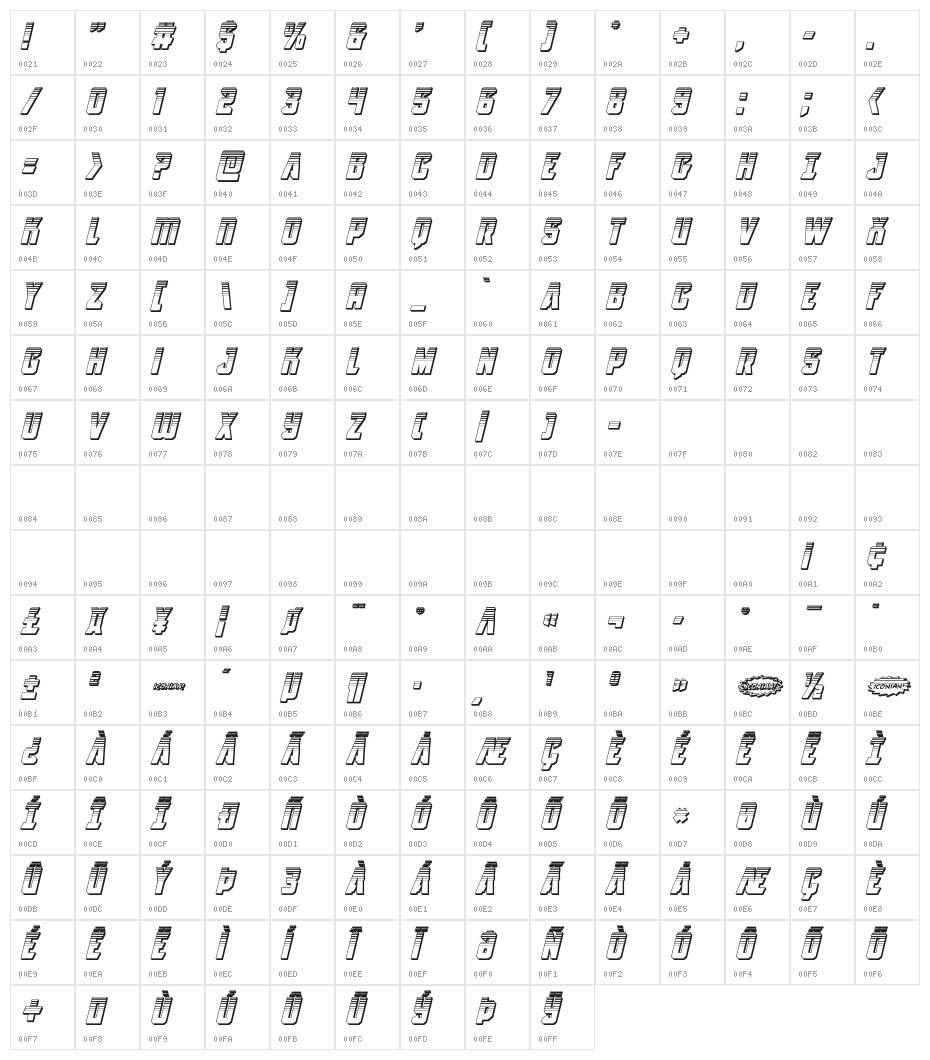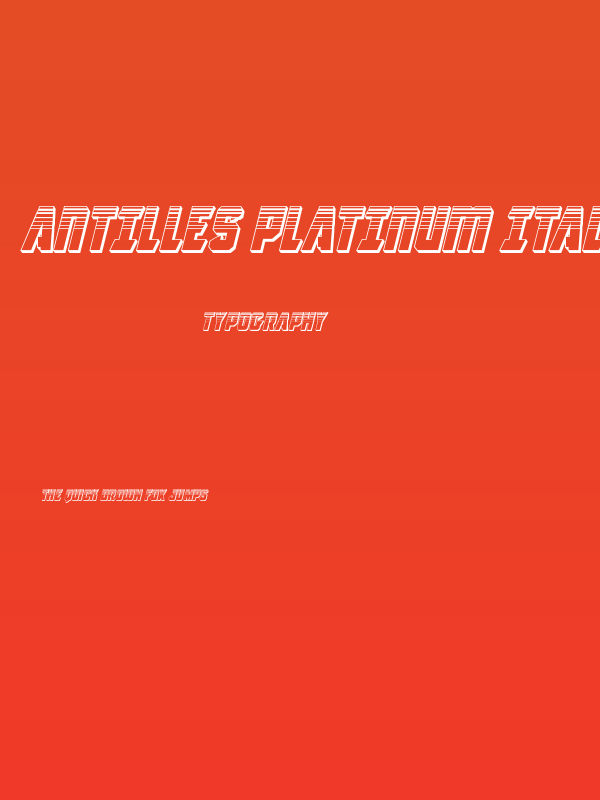
Antilles Platinum Italic Font
Antilles Platinum Italic Description
This font features a bold, three-dimensional design with a strong, geometric structure. The letters are italicized, giving them a dynamic and forward-leaning appearance. Each character is outlined with a thick black border, enhancing the 3D effect and providing a sense of depth. The interior of the letters is filled with horizontal lines, adding texture and visual interest. The overall style is modern and eye-catching, making it suitable for projects that require a bold statement. The font includes a full set of uppercase letters, numbers, and a variety of special characters, ensuring versatility in design applications.
| Proposed Projects | Ideal for posters, headlines, branding, and any design needing a striking, modern look. |